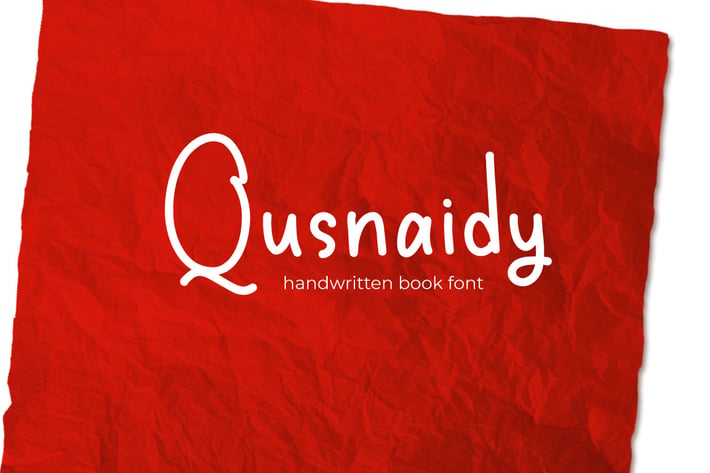
Qusnaidy - Handwritten Book Font
Qusnaidy - Handwritten Book Font is an elegant and beautiful handwritten font, designed to add a personal and warm touch to all your design projects. With smooth lines and graceful curves, this font is perfect for various creative needs, from wedding invitations, greeting cards, to branding and social media. Each character is carefully crafted to provide an authentic handwritten feel.